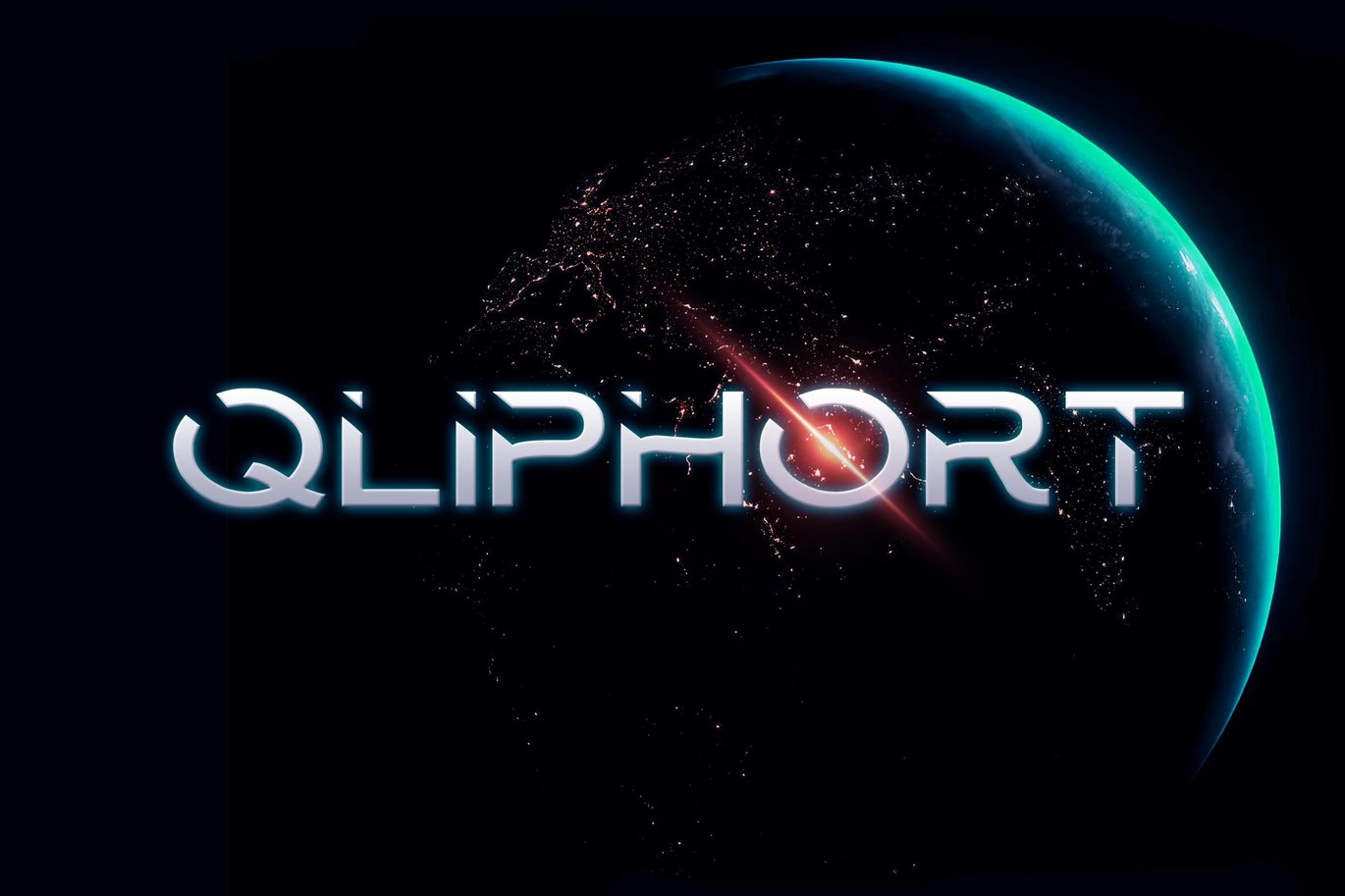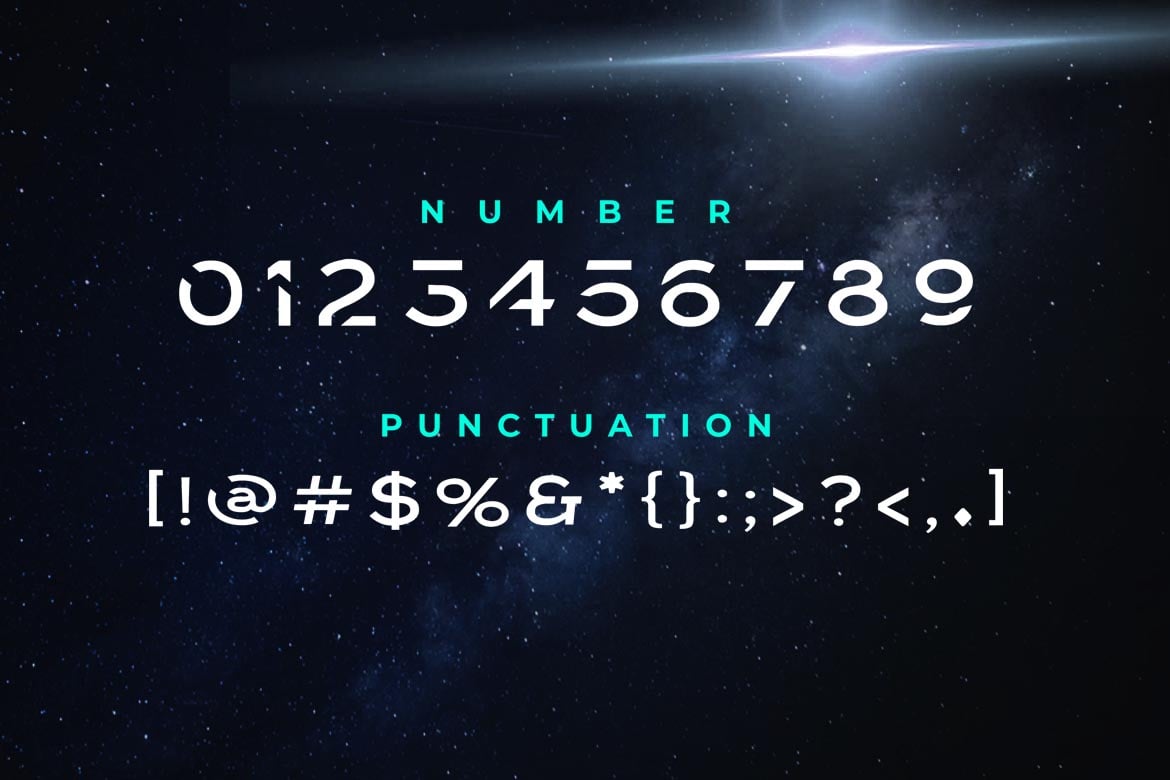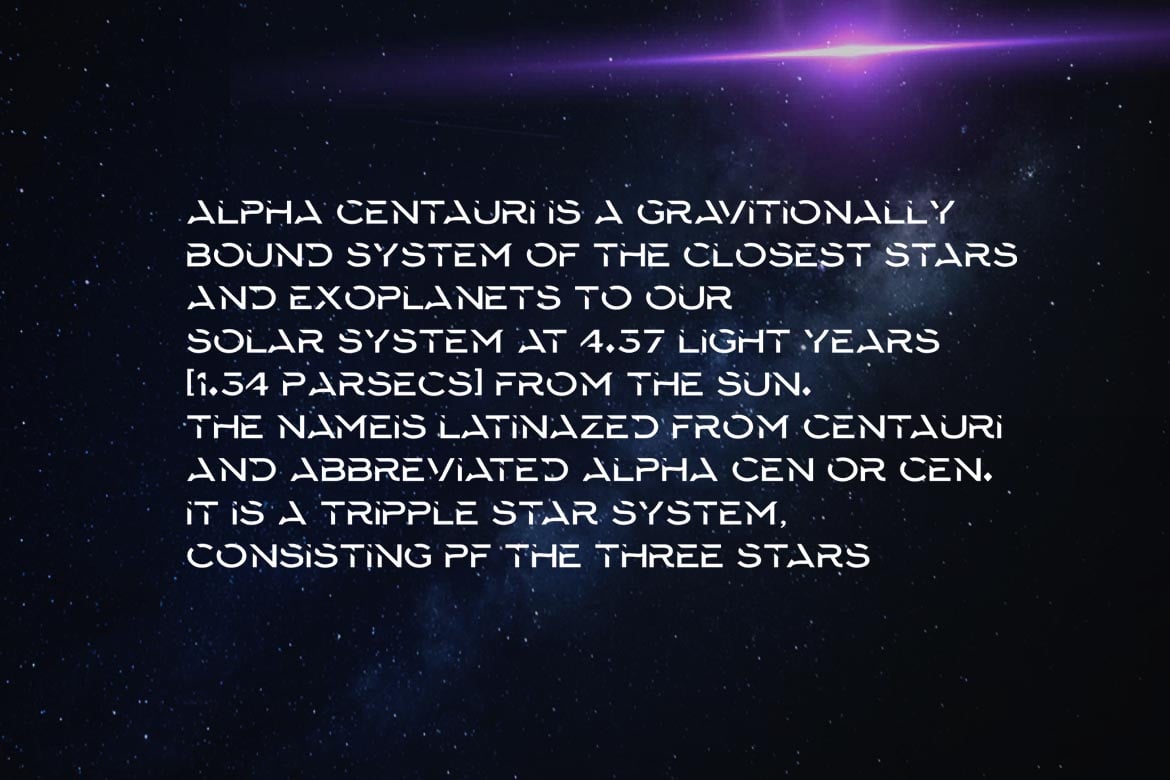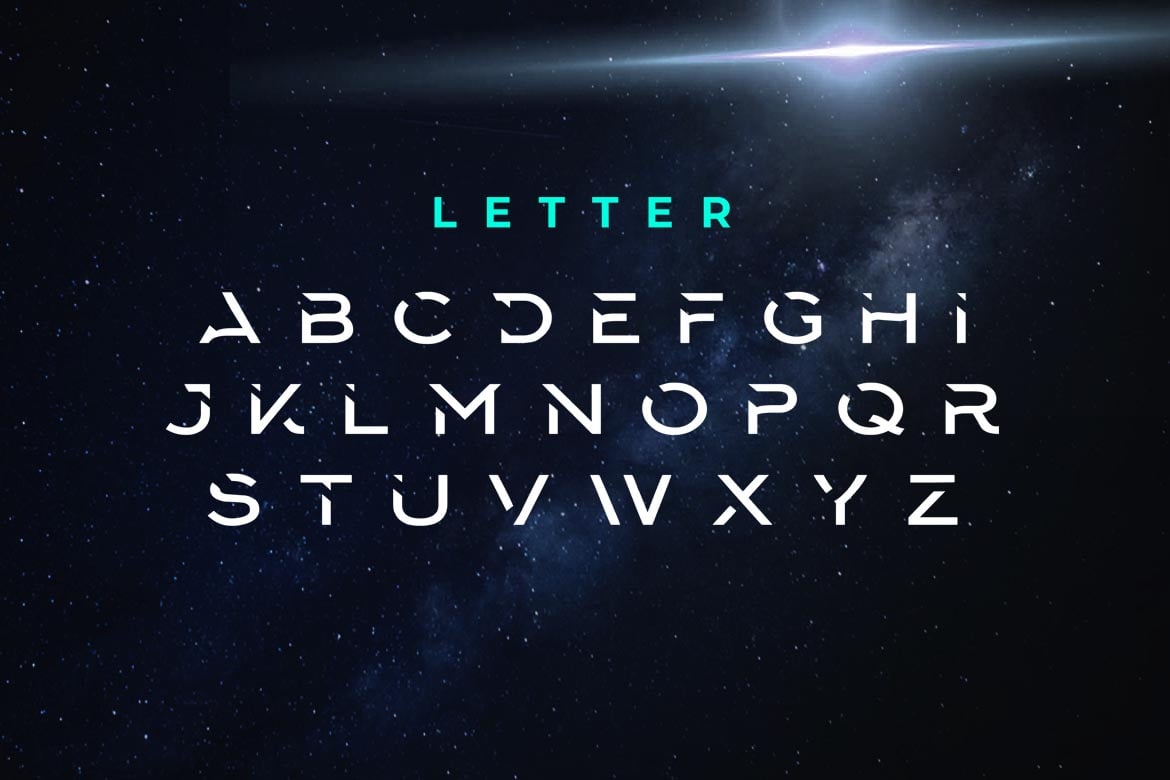
Qliphort – Futuristic Techno Space font
Introducing Qliphort – Futuristic Techno Space font
Introduce my new font called Qliphort. Qliphort is a futuristic font inspired by science fiction, movies and books. This font is suitable for various purpose such as movies, posters, logos, webfont and any modern purposes.